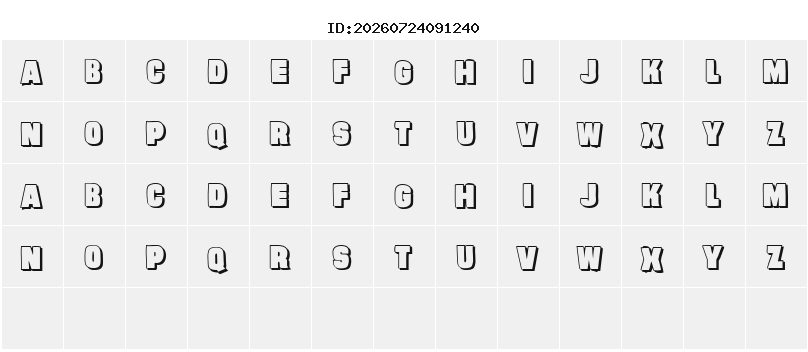
Evil Conspiracy Shadow Preview
• Font Name: Evil Conspiracy Shadow
• Font Style: Shadow
• Designer: Frédéric Rich
Evil Conspiracy Shadow.ttf is a modern, elegant sans-serif font designed for ultimate readability and visual harmony. Perfect for branding, headlines, web design, and print materials.